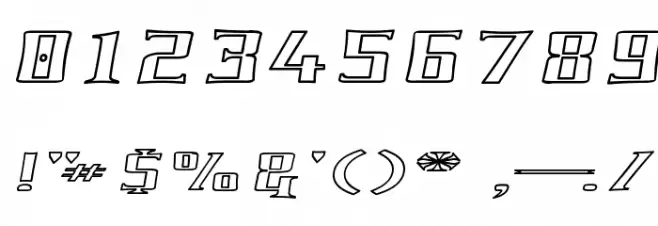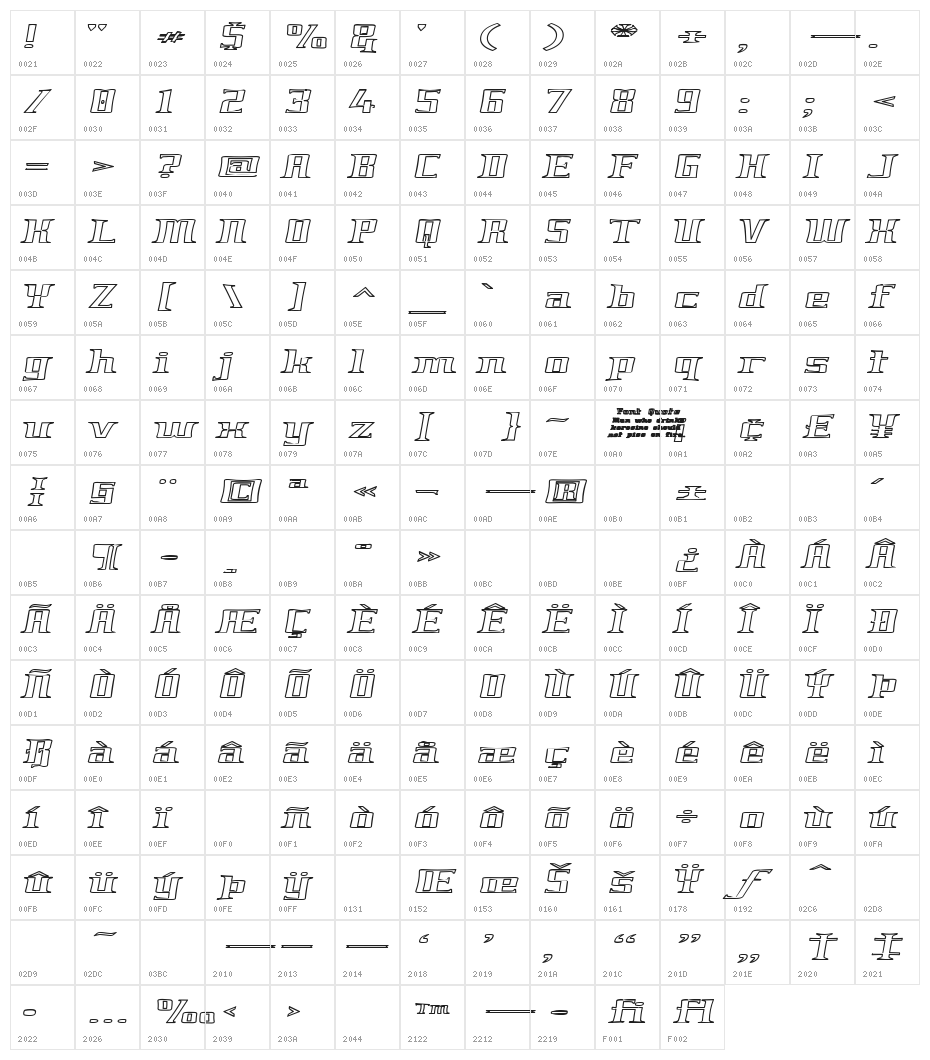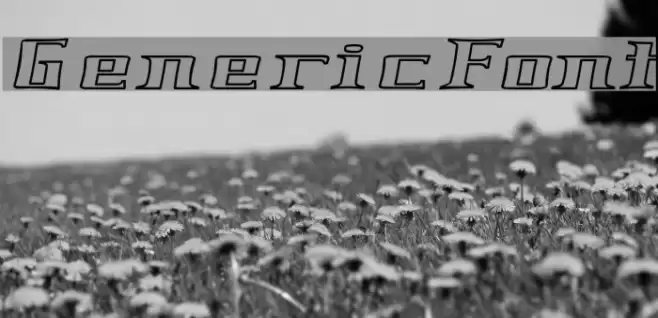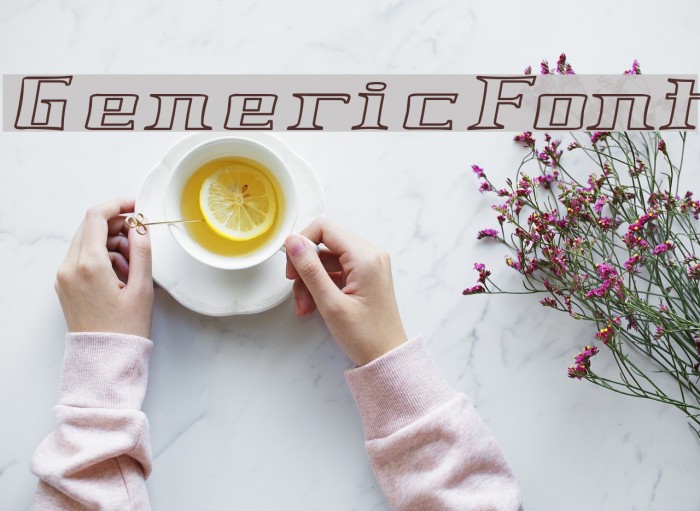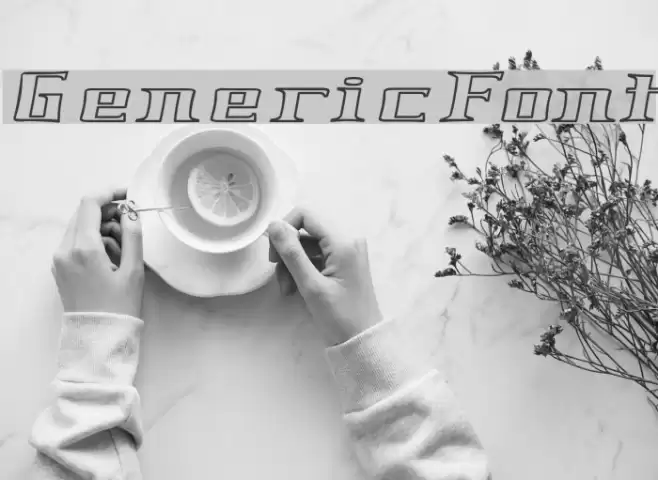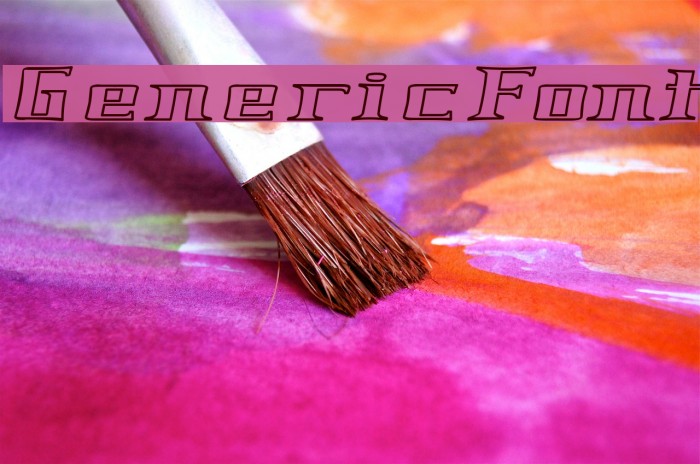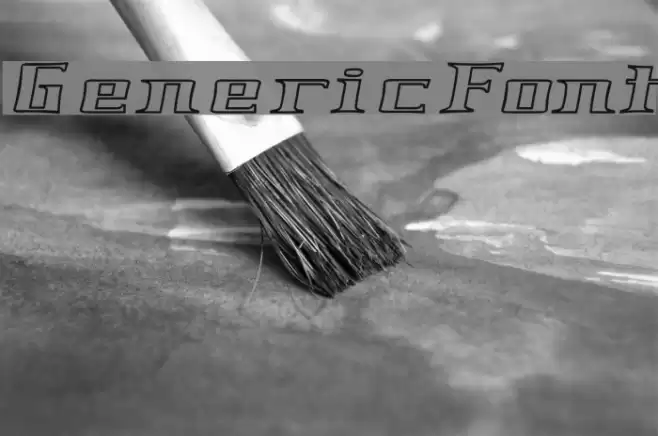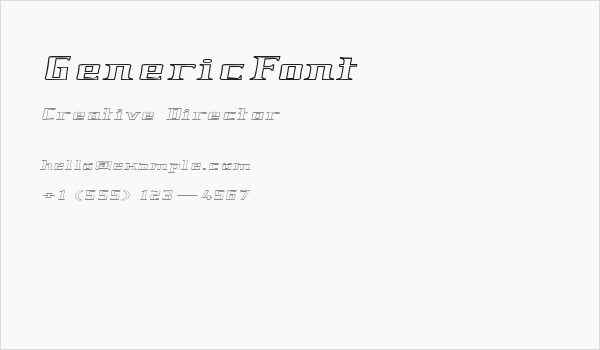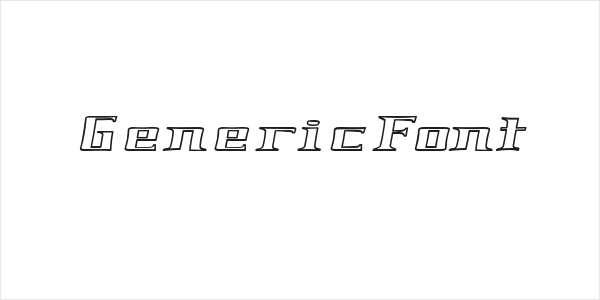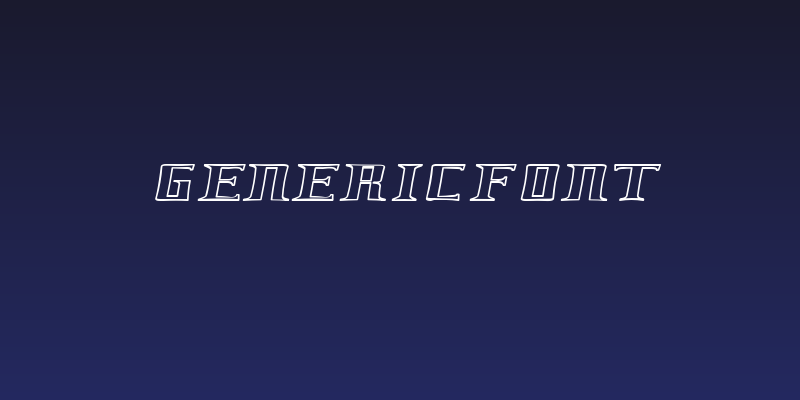
GenericFont Font
This font features a unique, angular design with a futuristic and mechanical feel. The characters are outlined, giving them a hollow appearance that adds to their distinctiveness. Uppercase and lowercase letters maintain a consistent style, with sharp edges and geometric shapes. The numbers and special characters follow the same design principles, ensuring uniformity across the font. This style is eye-catching and suitable for projects that require a modern and edgy look.
| Proposed Projects | Ideal for sci-fi themed posters, video game titles, tech branding, and futuristic event flyers. |